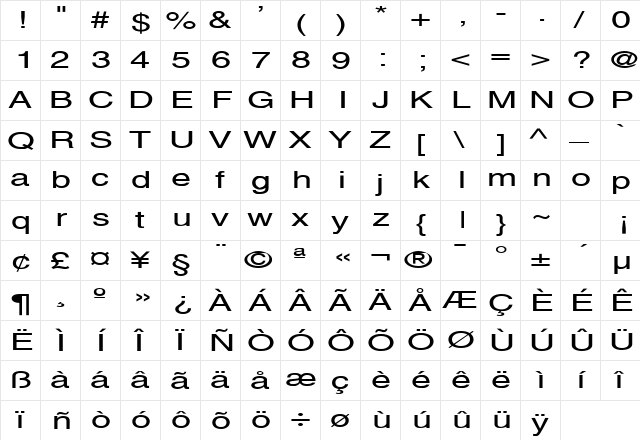
Alps Extended Normal
Design Context for Alps Extended Typeface
Alps Extended takes a measured approach to typography — its balanced proportions and neutral character make it a reliable workhorse for both digital and print work.